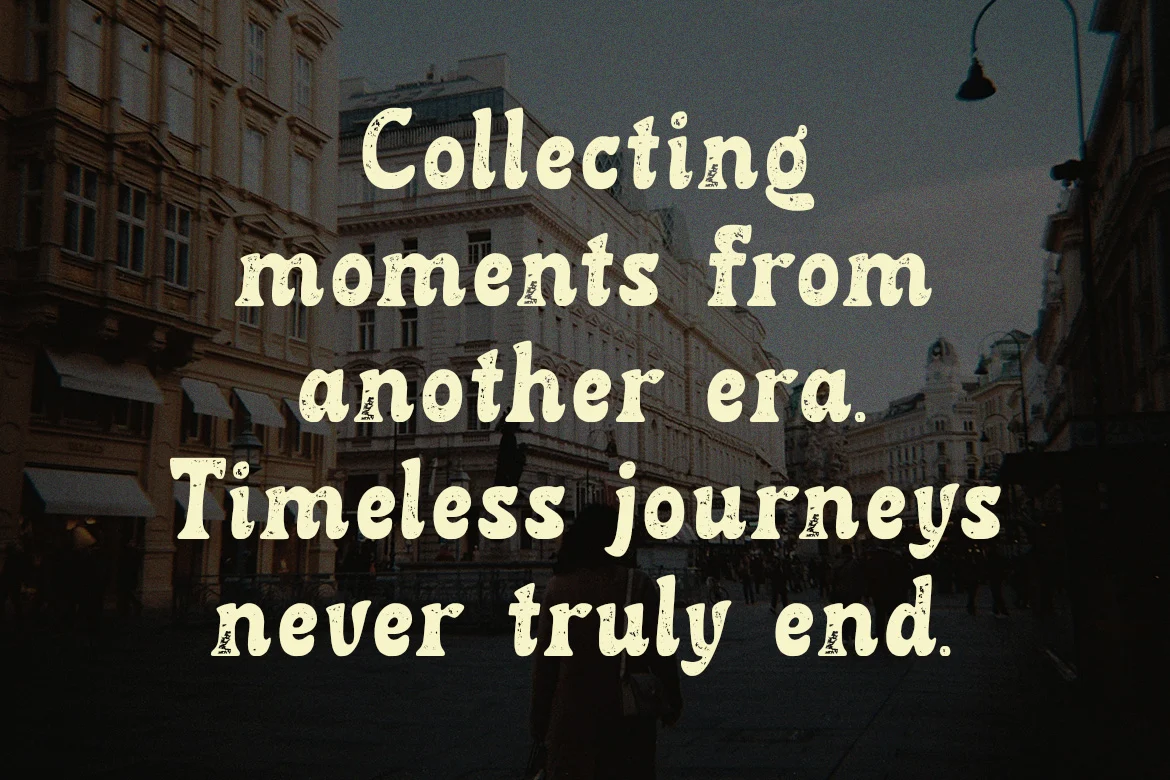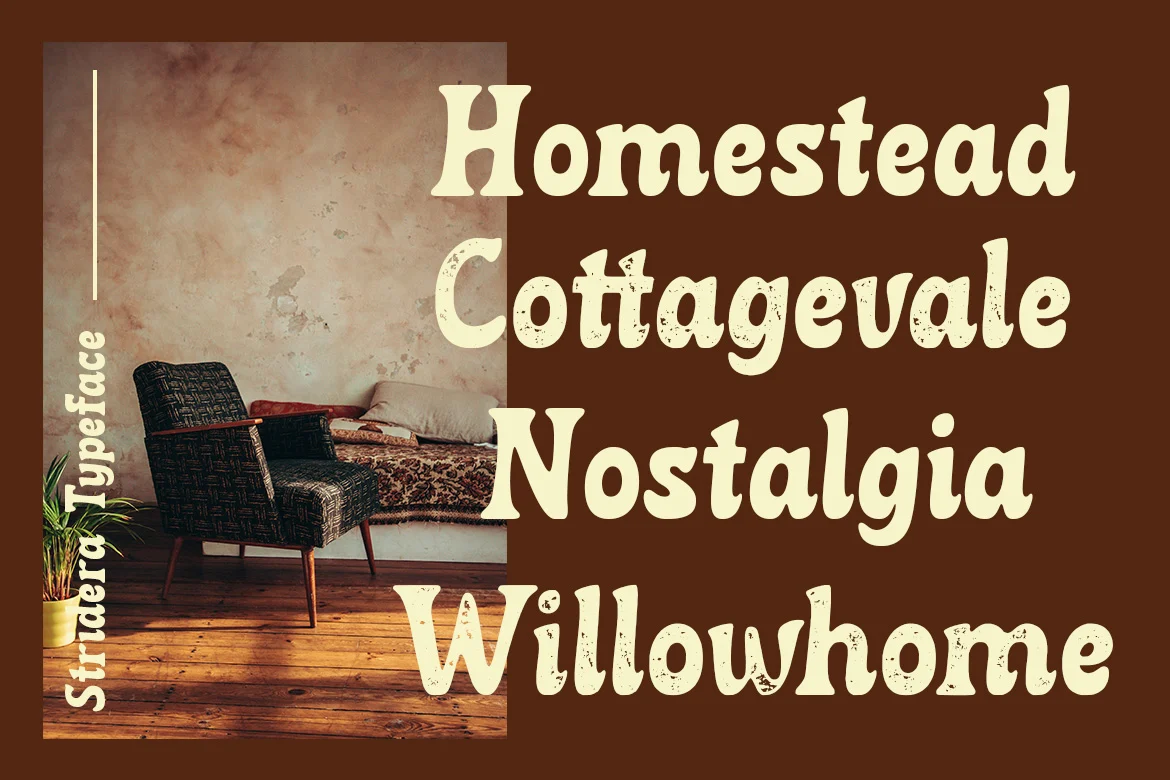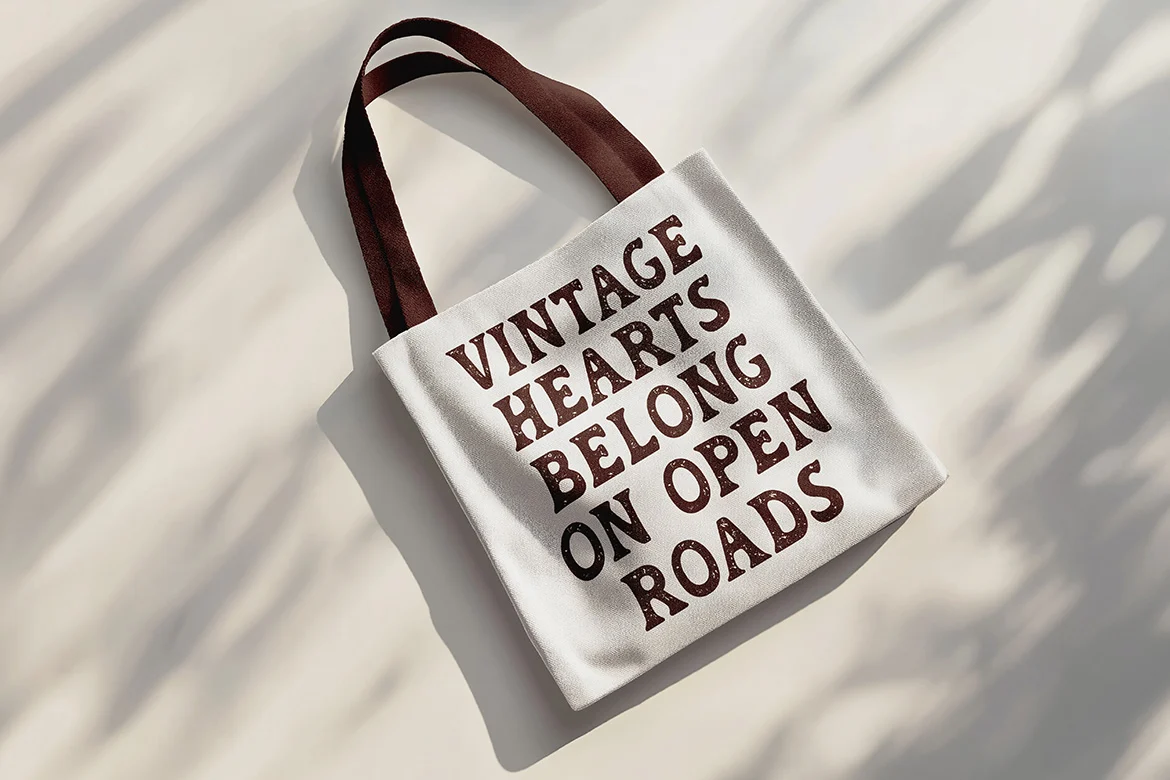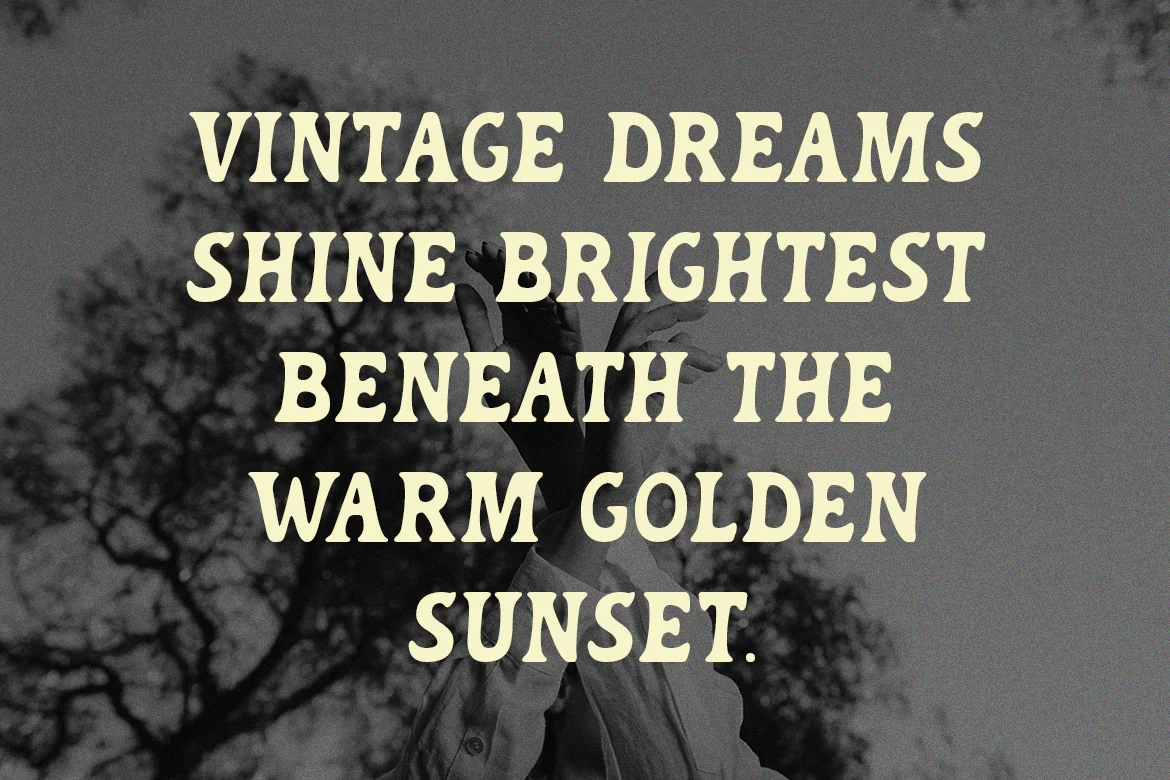
Stridera – Vintage Serif Display Font
Stridera Vintage is a bold vintage serif display font with classic retro character and textured details. Designed with nostalgic typography inspiration, this font works perfectly for retro branding, café signage, editorial layouts, vintage posters, packaging, logo projects, and old-school themed visuals. The combination of elegant serif structure and distressed style creates a timeless vintage atmosphere.
- Uppercase Letters
- Ligature & Alternate Character
- Unique Hand-Drawn Style